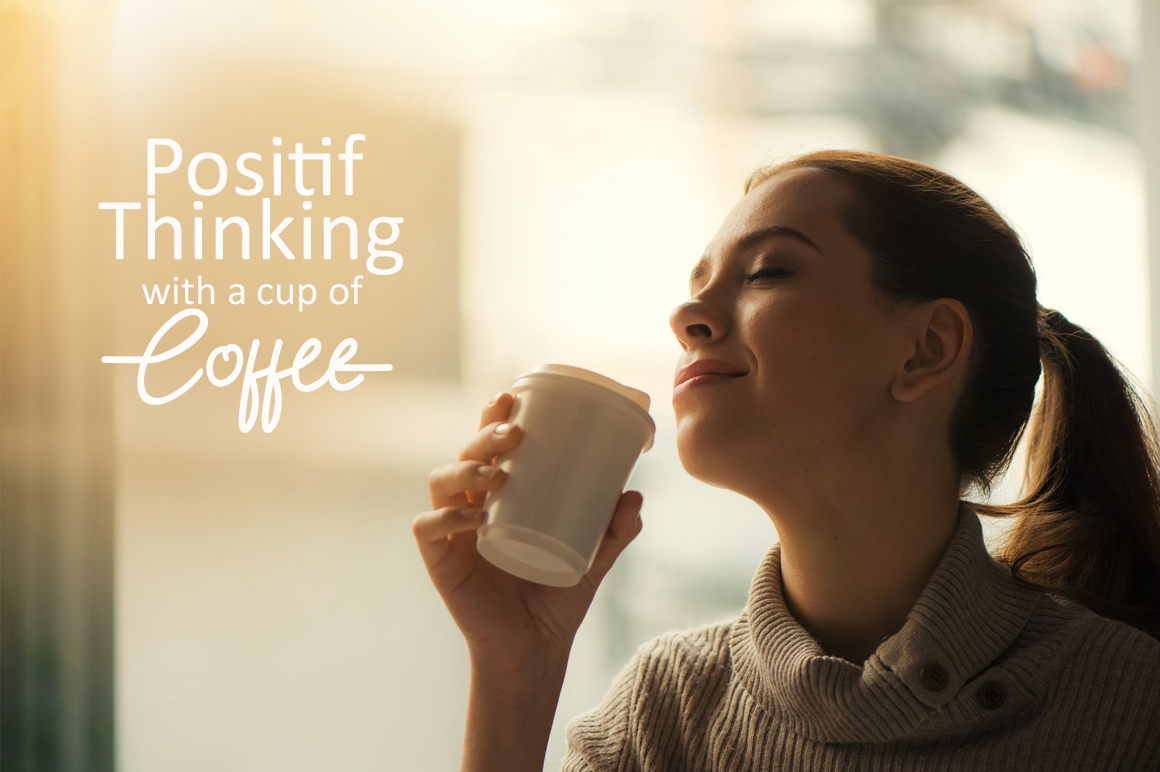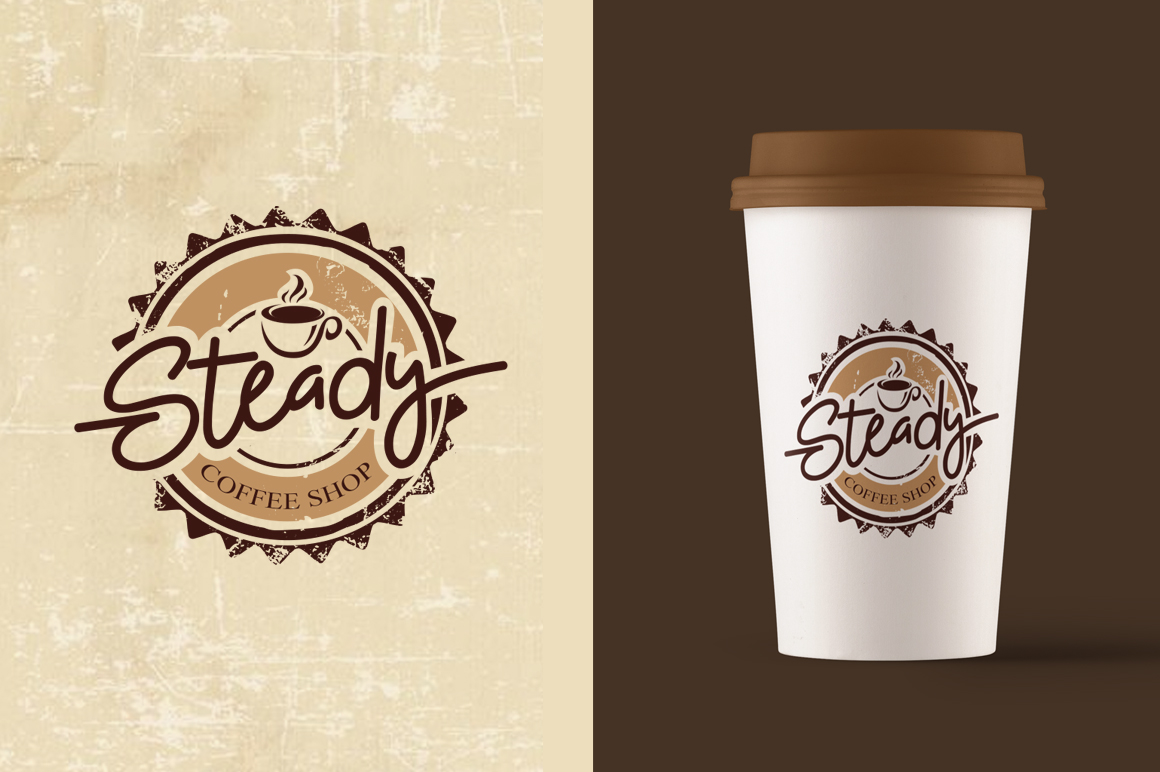
Gabuek Script Font
Introducing Gabuek Font! Gabuek designed and shared by khurasan. A professional modern script font, Gabuek. Gabuek font it’s perfect for namecard, poster, logo, magazine, cover, banner, tshirt and headers, or even large-scale artwork…